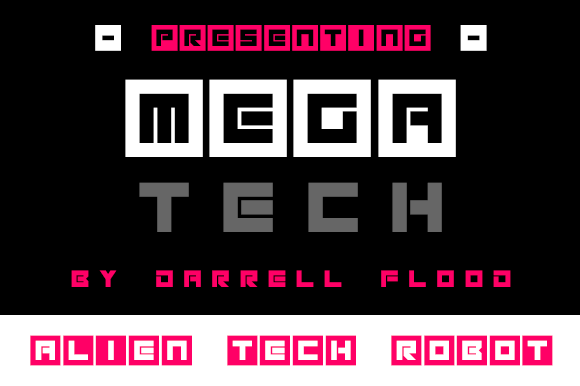
Unlocking the Power of Your Creative Project with Megatech Font
Have you ever found yourself staring at a blank canvas, wondering how to bring your creative vision to life? The spark of inspiration hits, and you’re off and running, but the perfect font to match your unique style eludes you. This is where the Megatech Font comes in – a game-changing design resource that will take your creative project to the next level.
With its bold, robotic, and squared look, the Megatech Font is the perfect addition to any designer’s library. Whether you’re working on a futuristic sci-fi project or a sleek tech startup branding, this high-quality font has the potential to elevate your design and leave a lasting impression. And the best part? You can download it for free, making it an accessible design resource for designers of all levels.
Key Features of Megatech Font
- High-quality design resource ideal for creative projects, offering a unique blend of futuristic and modern elements.
- Designed to be highly customizable, with multiple styles and weights available, allowing designers to create unique and engaging visual content.
- Perfect for designers looking for a versatile and professional design resource, suitable for use in a variety of creative projects, from logos and branding to digital art and graphics.
Honest Review: Megatech Font
As a designer, I’m always on the lookout for high-quality design resources that can elevate my creative projects. Recently, I came across the Megatech Font, and I’m excited to share my honest review with you.
What works well: ✨ The Megatech Font has a sleek and modern design that’s perfect for tech-related projects or anything that requires a futuristic feel. The font is available for free download, which is a huge plus for designers on a budget. The transparent background makes it easy to customize and use in a variety of design contexts.
Here are some of the font’s key features:
- High-quality design that’s perfect for modern and tech-related projects
- Works well for both digital and print projects
Limitations: ⚠️ While the Megatech Font is a great addition to any designer’s toolkit, it’s not without its limitations. The font only comes in a few weights, which may limit its versatility in certain projects. Additionally, the font may not be suitable for projects that require a more classic or traditional feel.
Overall impression: I’m really impressed with the Megatech Font, and I think it’s a great design resource for any creative project. While it may have some limitations, its high-quality design and free availability make it a must-have for any designer looking to add some modern flair to their work.